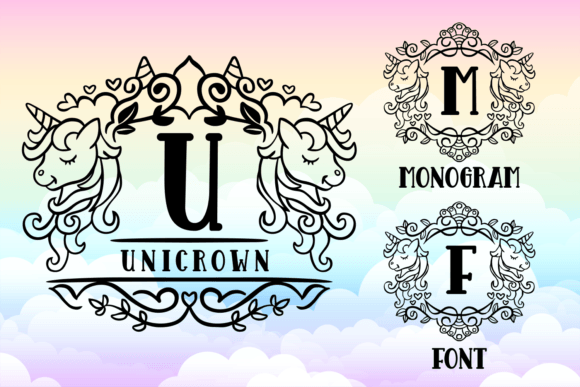
Unicrown Font: The Best Font Style For Blogger
Welcome to the whimsical world of Unicrown Font, where cuteness and magic blend seamlessly! Created by the talented team at Dreamink (7ntypes), this decorative font is the perfect choice for bloggers seeking to elevate their designs with a touch of charm and playfulness.
With its adorable monogram style, Unicrown Font brings a sense of enchantment to any project. Whether you're crafting a captivating blog post, designing eye-catching social media graphics, or creating a unique logo, this font will transport your audience to a magical realm they won't be able to resist.
Why settle for ordinary fonts when you can captivate your readers with Unicrown's delightful curves and whimsical details? Its unique design is sure to make your content stand out and leave a lasting impression on your audience.
But Unicrown Font is not just about aesthetics; it's also a powerful tool to convey emotions and create a strong connection with your readers. Imagine the joy and excitement they'll feel as they navigate through your blog, guided by the charming letters of Unicrown Font.
Unlock your creativity and let your imagination run wild with Unicrown Font. Whether you're a seasoned blogger or just starting your online journey, this font is a must-have for anyone looking to make a statement and leave a lasting impression.